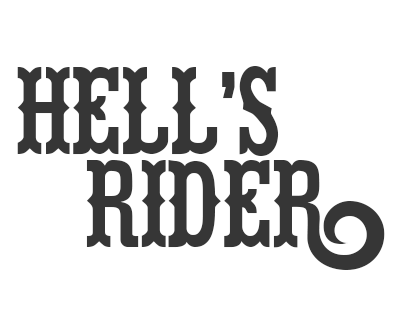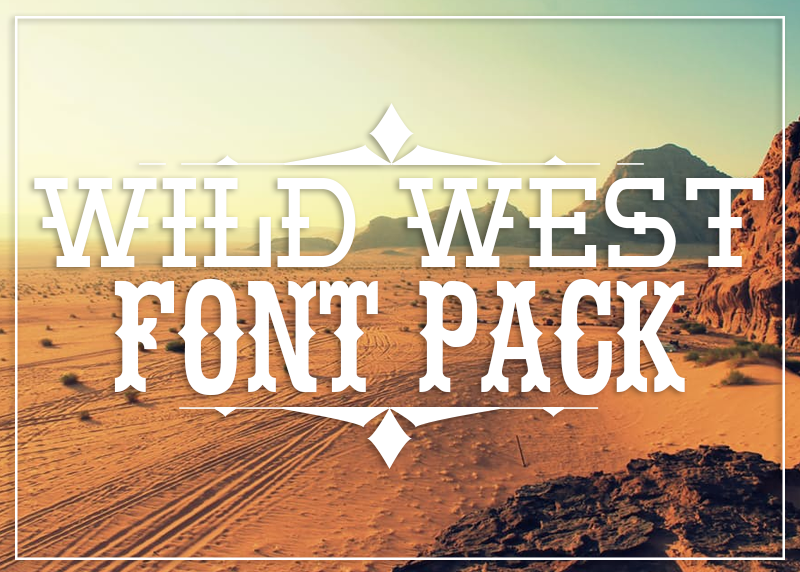
Wild West Font Pack
The best western theme font pack available! This font bundle includes all the fonts in the Southwest font pack plus some! This bundle has 12 western theme fonts. Select fonts have solid, eroded, and italic styles available. Make sure to check out the picture gallery to view the fonts in detail.
Fonts Included in this pack:
| 1. Hell's Rider Font (Designed in 2016) | 2.The Dead Saloon |
| 3. Pistol Grip Pump font | 4. Fort Death (Designed in 2016) |
| 5. El Sancho Rancho | 6. Hell's Rider Decay |
| 7. Gun Fighter Academy | 8. Poker Kings |
| 9. Tequilla Sunset & Sunrise | 10. Hire a Cowboy |
| 11. Dingle Huckleberry | 12. Cynical Hills |
Font includes these western borders and rulers to use with your font: